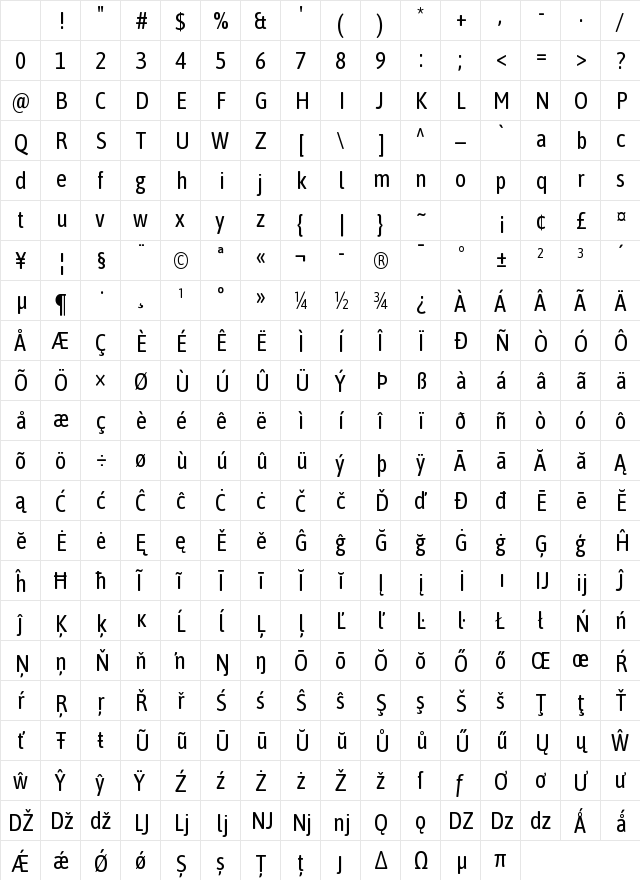
Complete Asap Condensed VF Beta Regular glyph index. Displaying only characters natively supported by Asap Condensed VF Beta Regular font.
Asap Condensed VF Beta is a composed and adaptable typeface that performs quietly and consistently across a wide range of design contexts. Its narrow stance lets it pack a punch even in space-constrained designs.